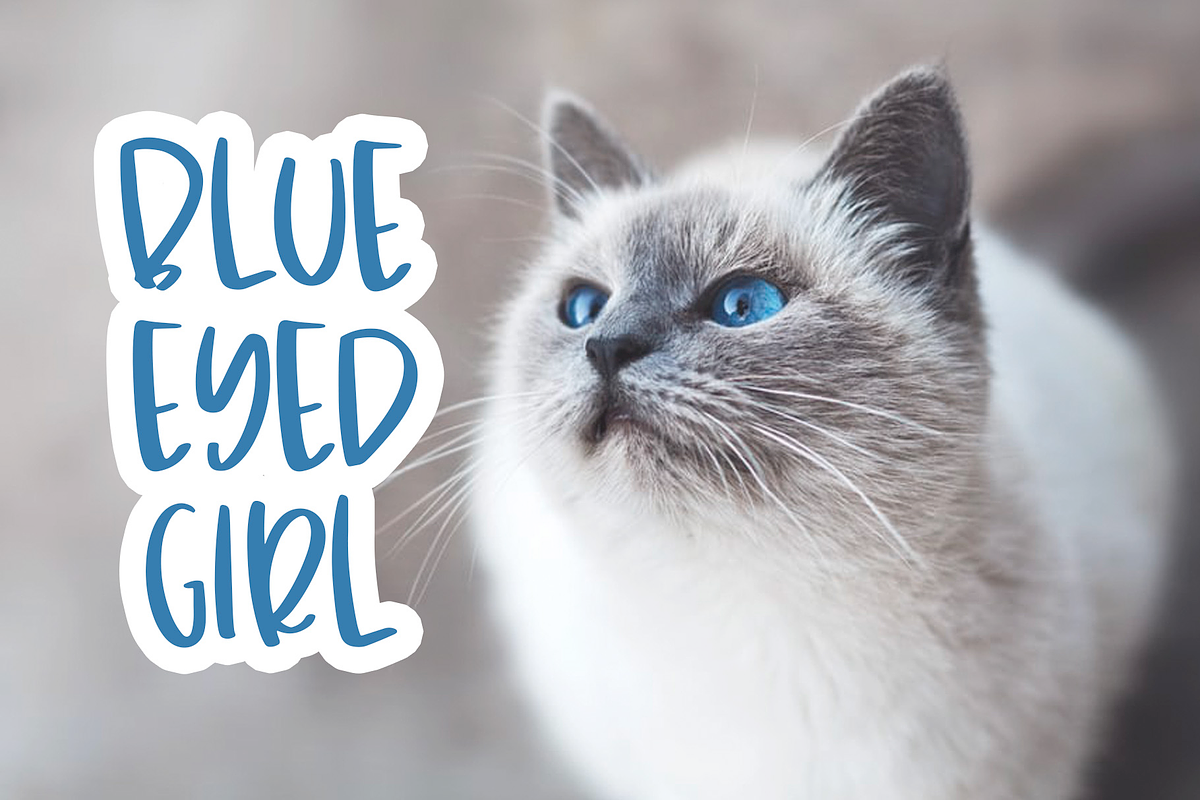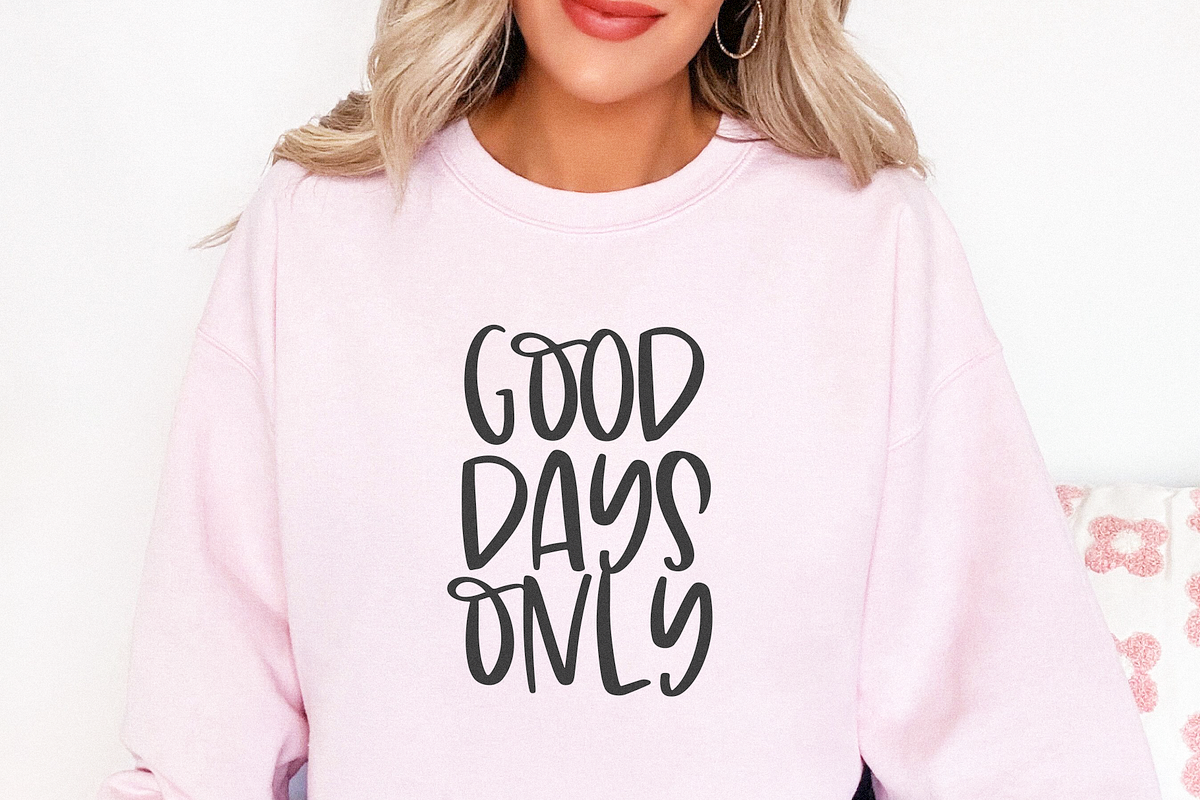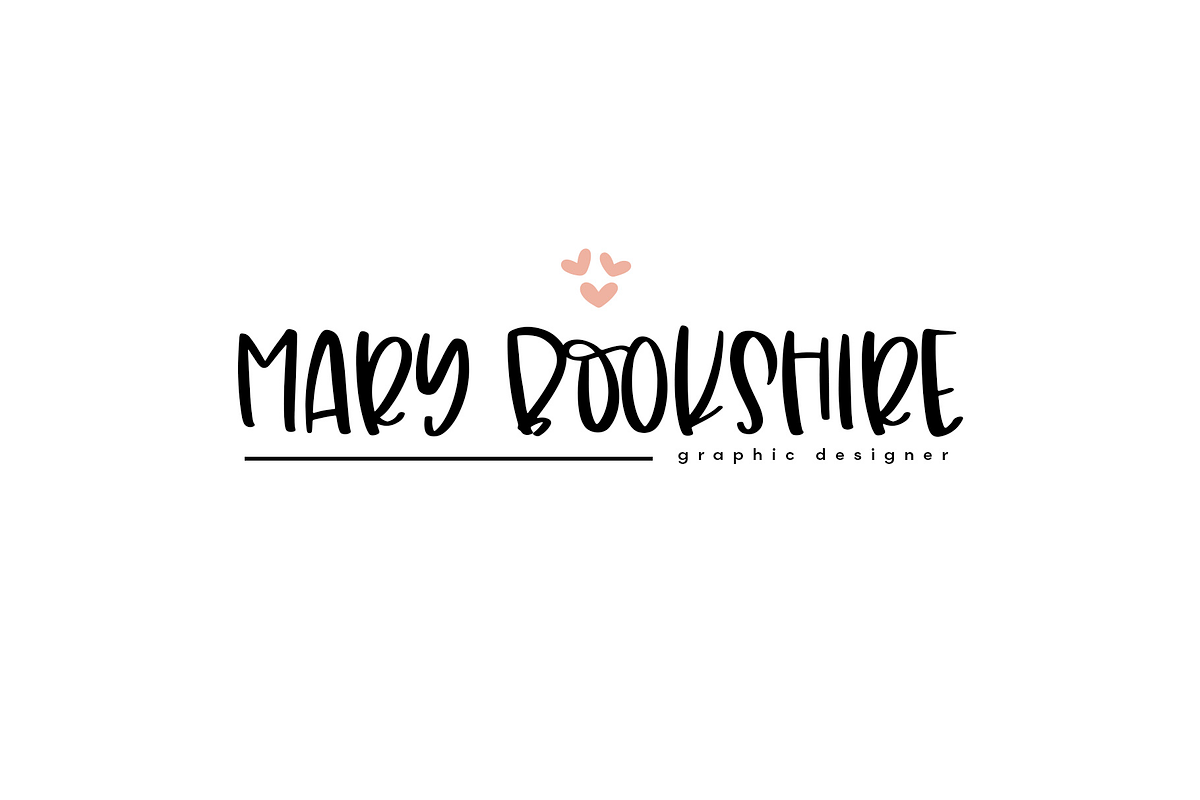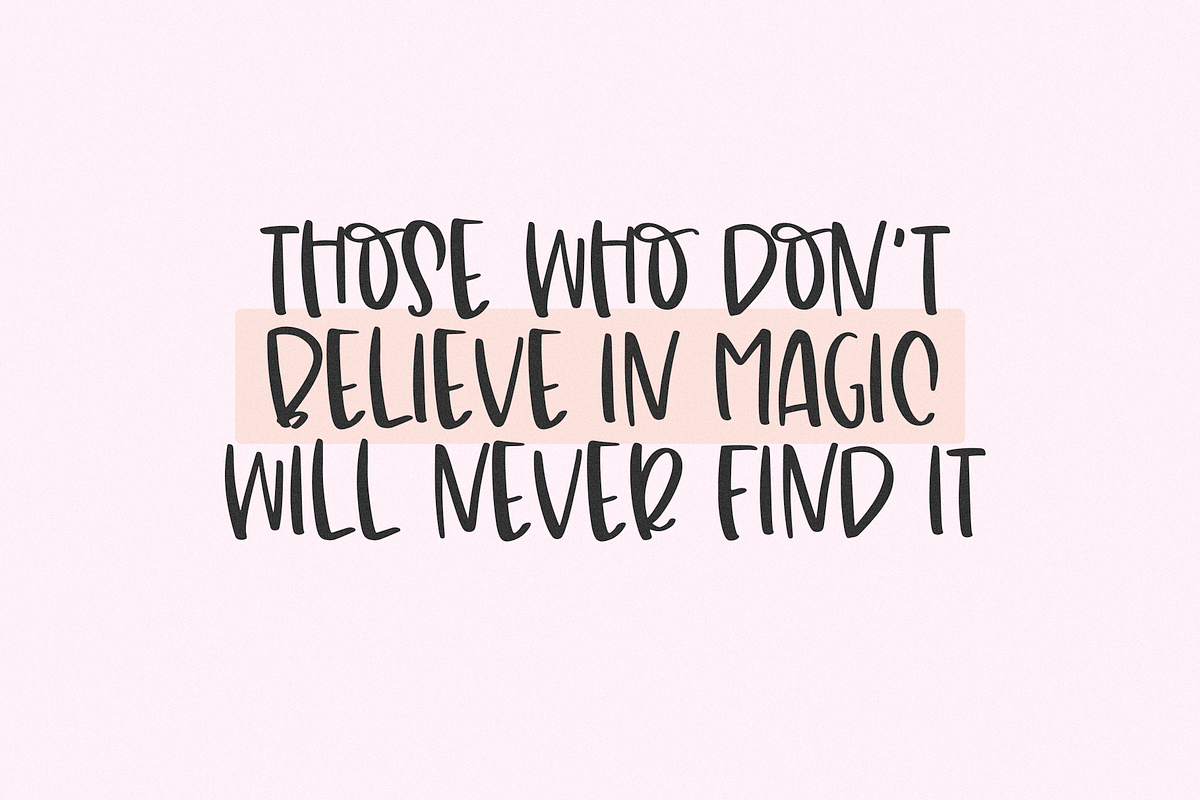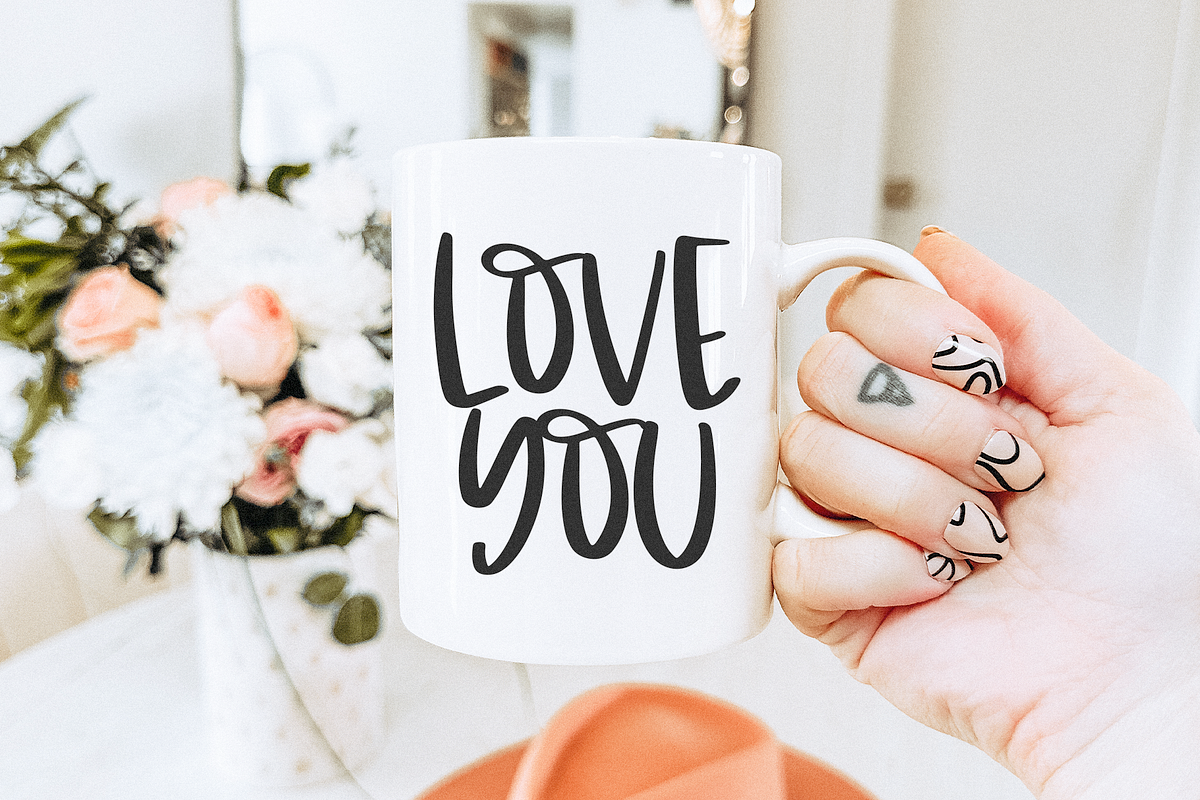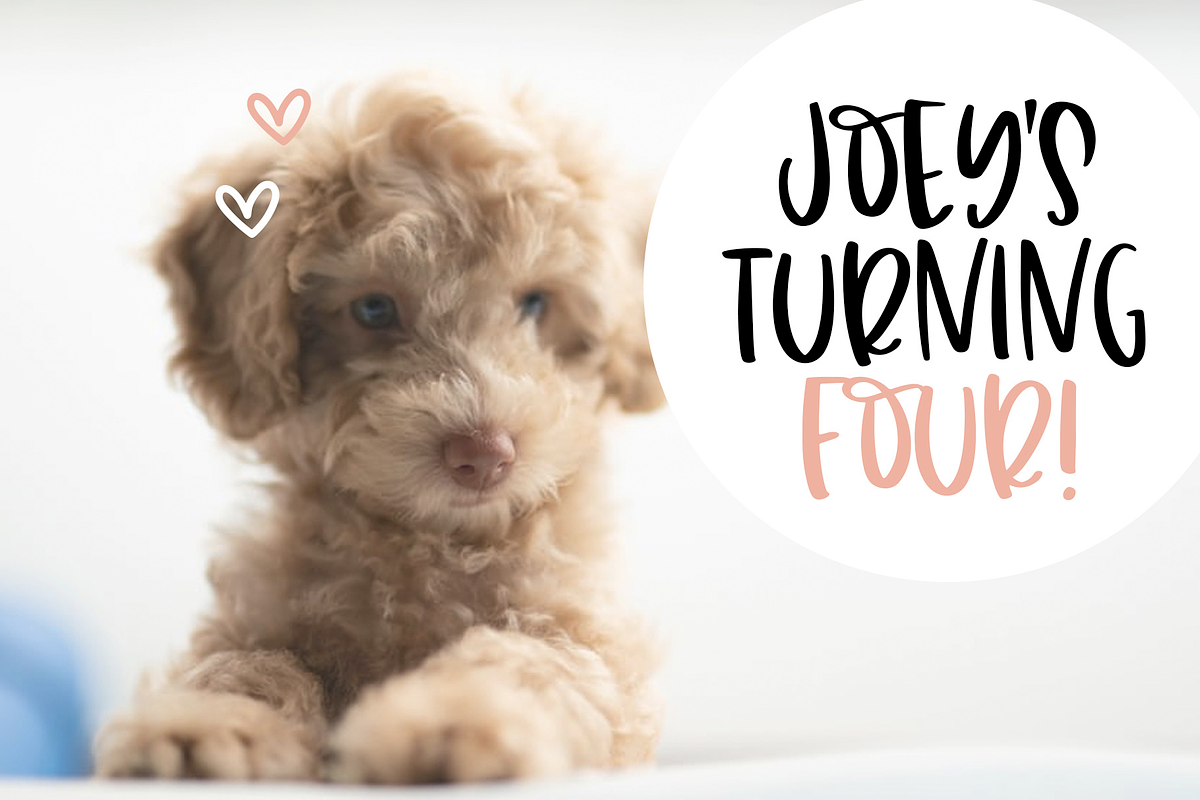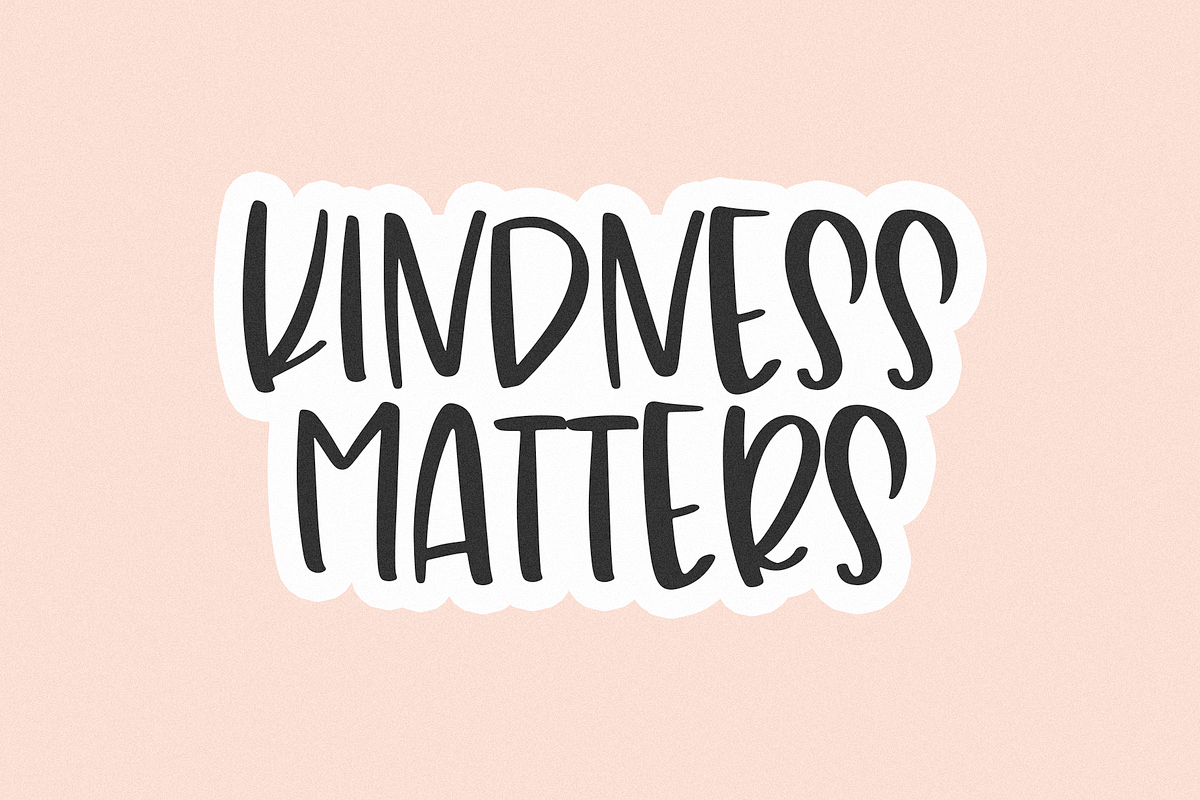
Georgia Peach - Handwritten Font
Georgia Peach is a handwritten font with big, quirky letters. It is an ALL CAPS font.
This font is perfect for quotes, headings, blogs, logos, invitations and more!
Georgia Peach - Handwritten Font by KA Designs fits naturally into Branding, posters, packaging, typography.